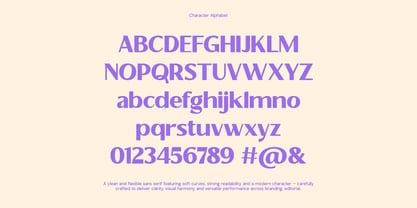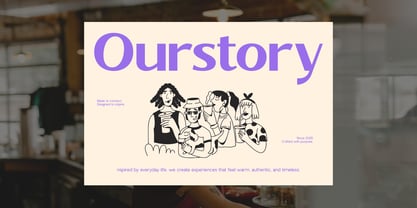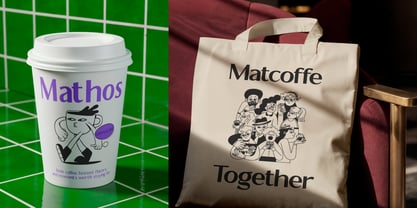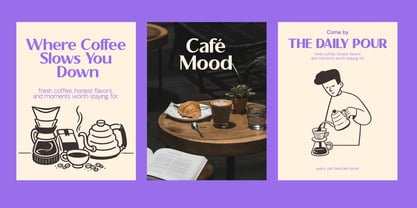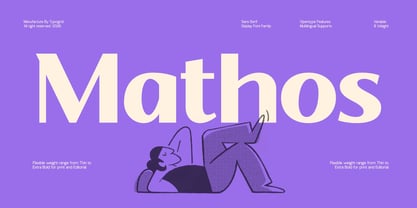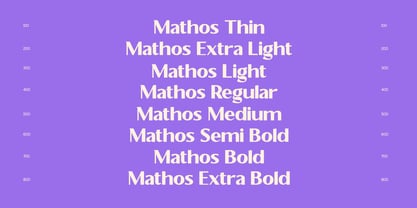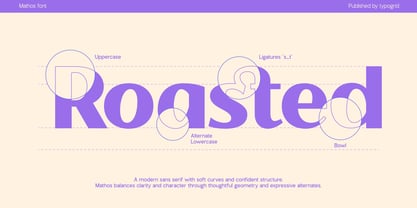
TG Mathos
by Typogrid
The TG Mathos Font Family was designed by Mukhamad Rafly Makhbuby and published by Typogrid. TG Mathos contains 8 styles and family package options. More about this family
Mathos is a modern display sans serif font designed for bold visual impact and clean readability. Built with strong geometry and smooth proportions, Mathos works perfectly for headlines, posters, branding, editorial layouts, and digital interfaces.
With its flexible weight range and contemporary character shapes, Mathos adapts seamlessly across both print and digital media—making it a versatile choice for designers who value clarity and style.
✦ Key Features
Display Sans Serif Font Family
8 Weights — from Thin to Extra Bold
Variable Font Included
OpenType Features
Multilingual Support
Carefully crafted kerning & spacing
Optimized for print & editorial use
Mathos delivers a confident, modern voice—minimal yet expressive—perfect for projects that demand strong typographic presence without sacrificing elegance.
Designers: Mukhamad Rafly Makhbuby
Foundry: Typogrid